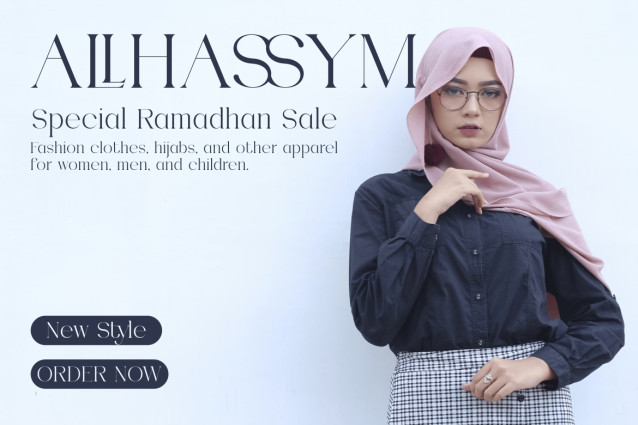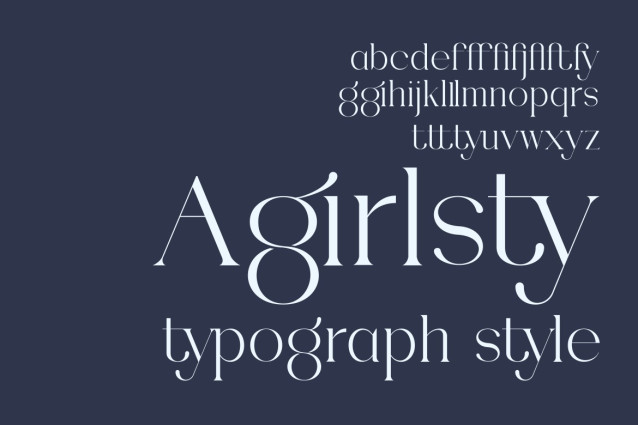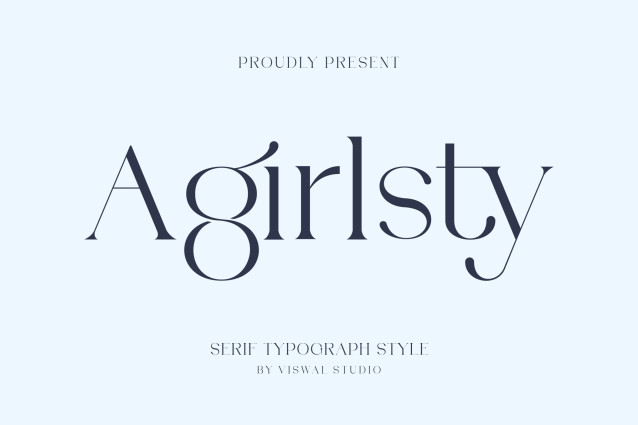
Agirlsty Font
Agirlsty Font is a modern and elegant luxury font. It can easily convey your message effectively in your design. The font is suitable for logos, labels, badges, branding, magazines, posters, headlines, concerts, covers, and more. Our fonts feature uppercase and lowercase letters, numbers and punctuation, and open type. For stunning designs, you can combine it with other complementary fonts.